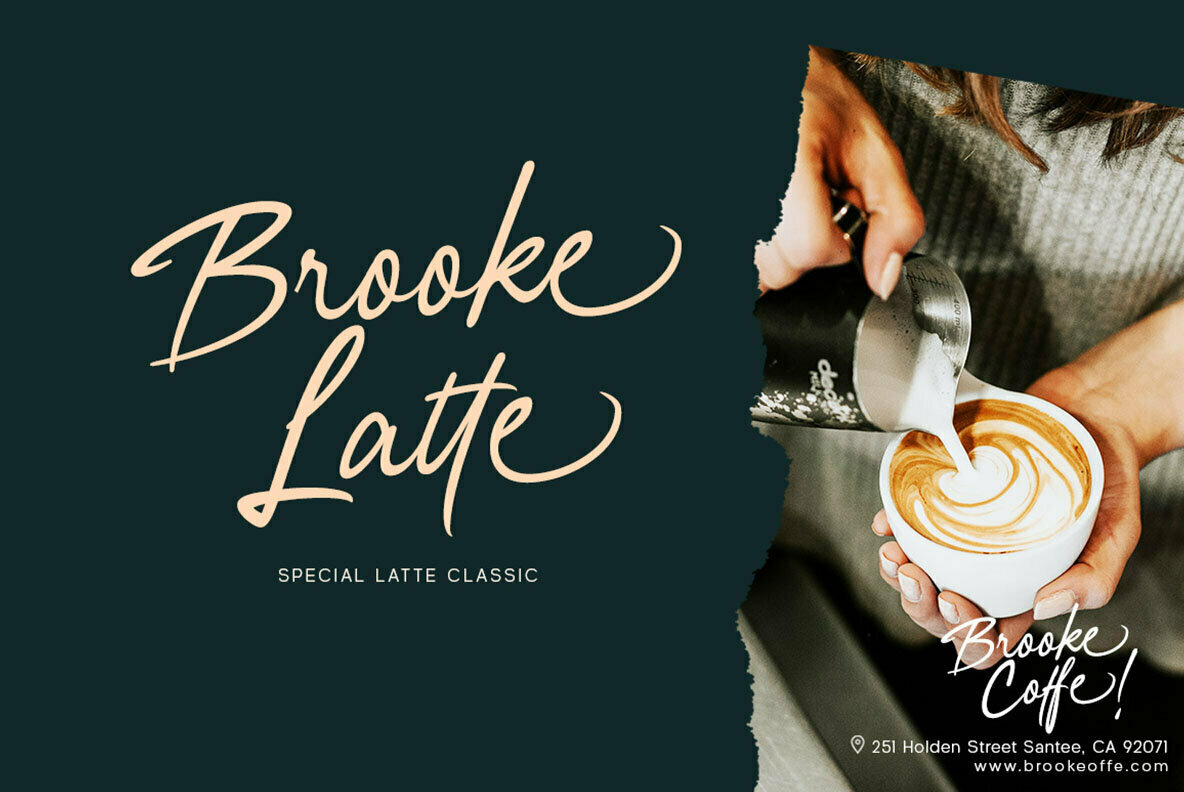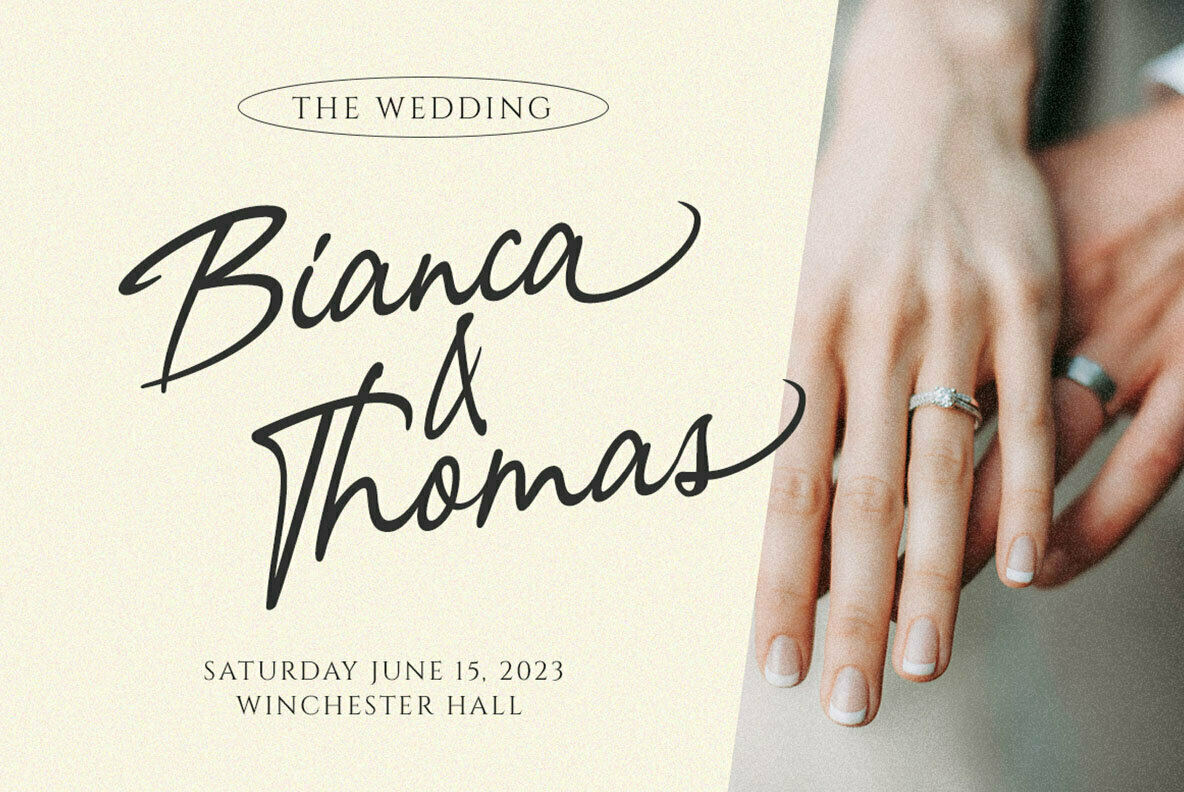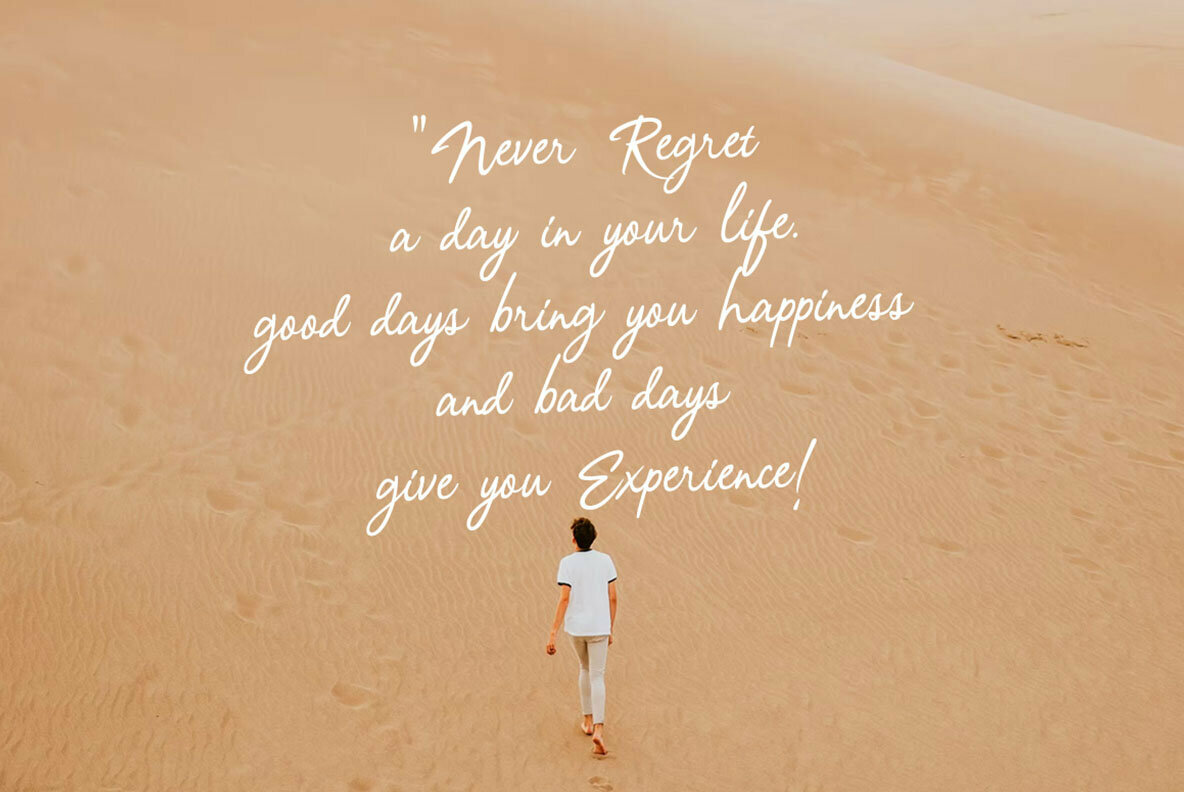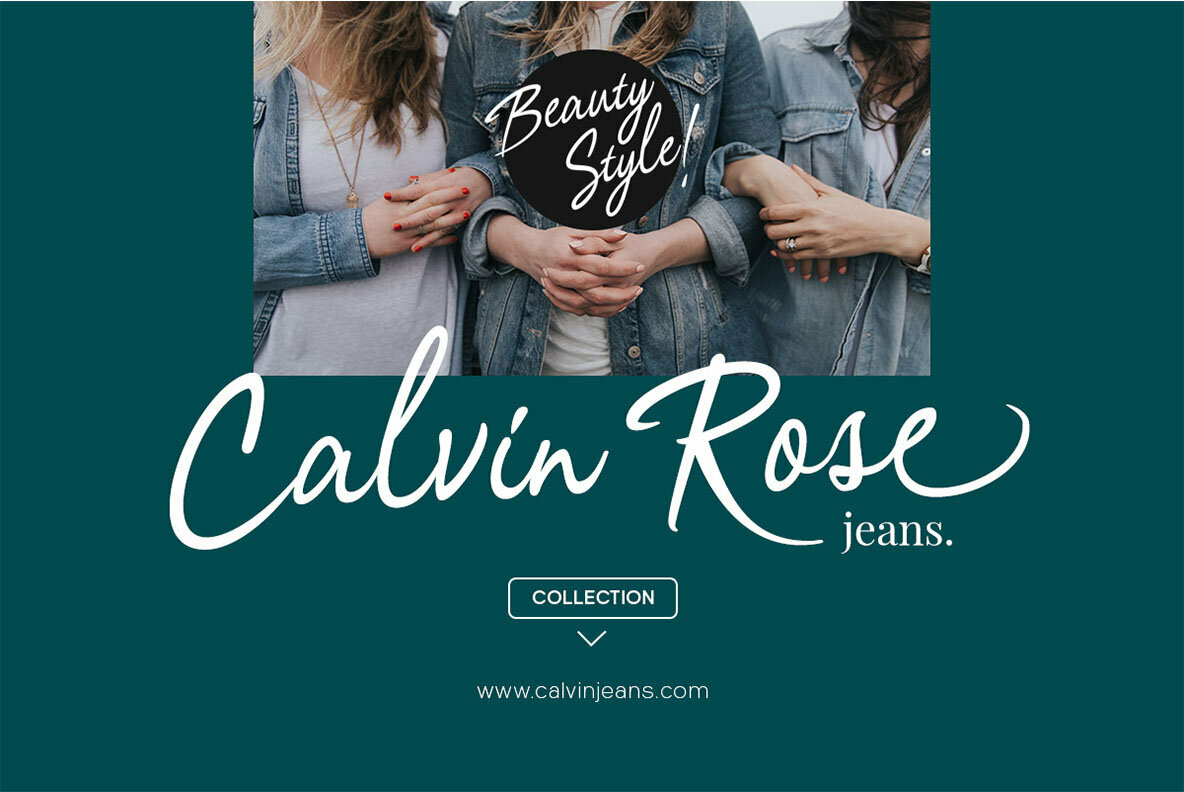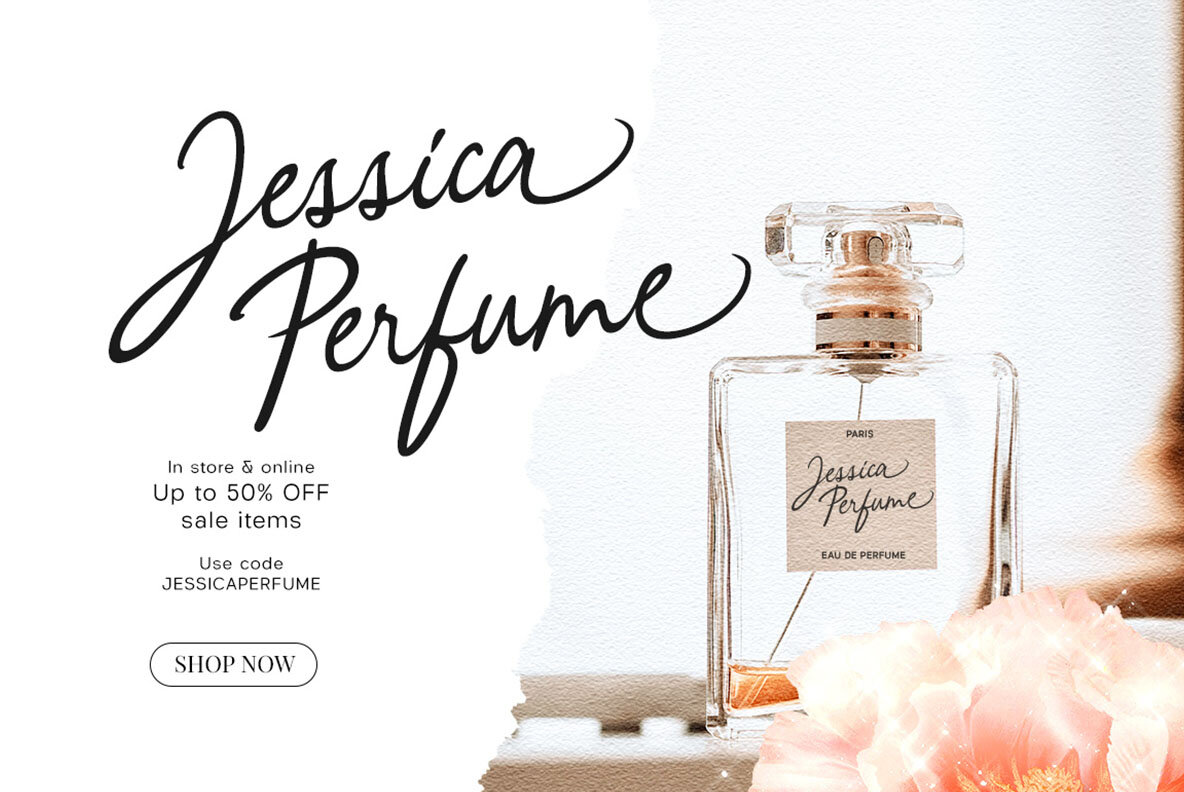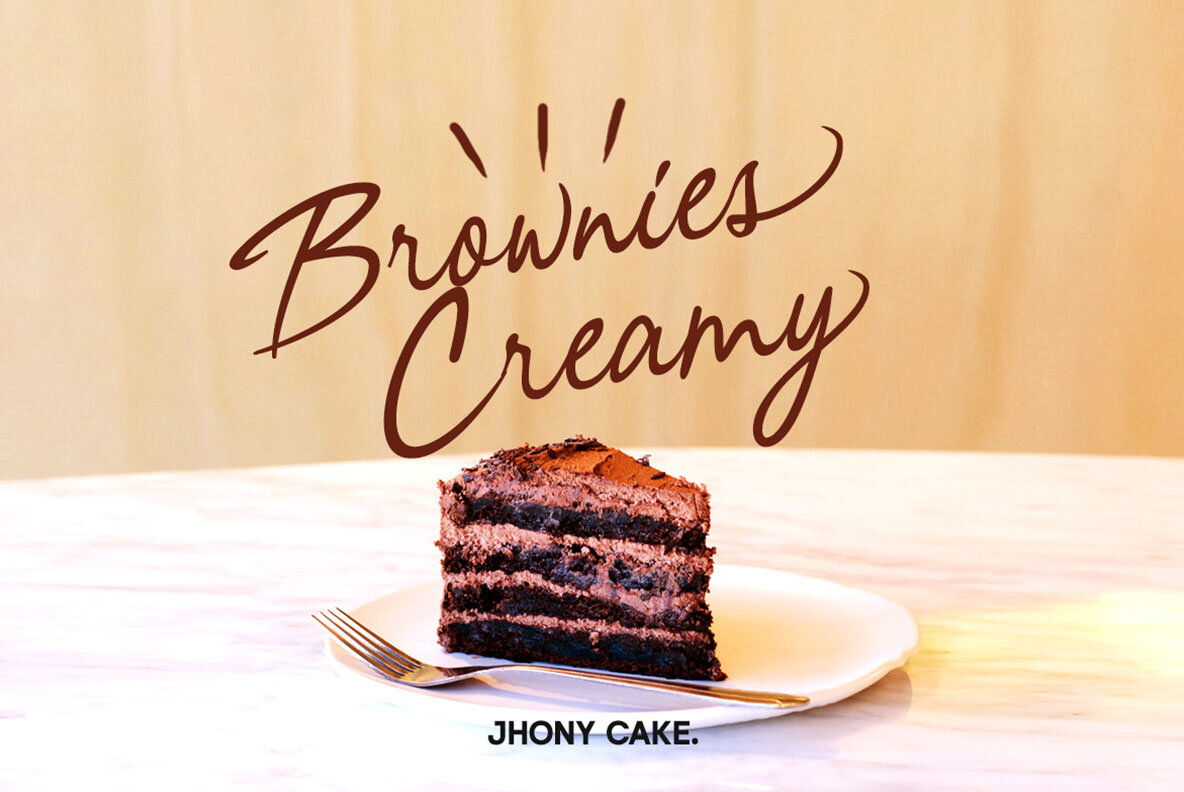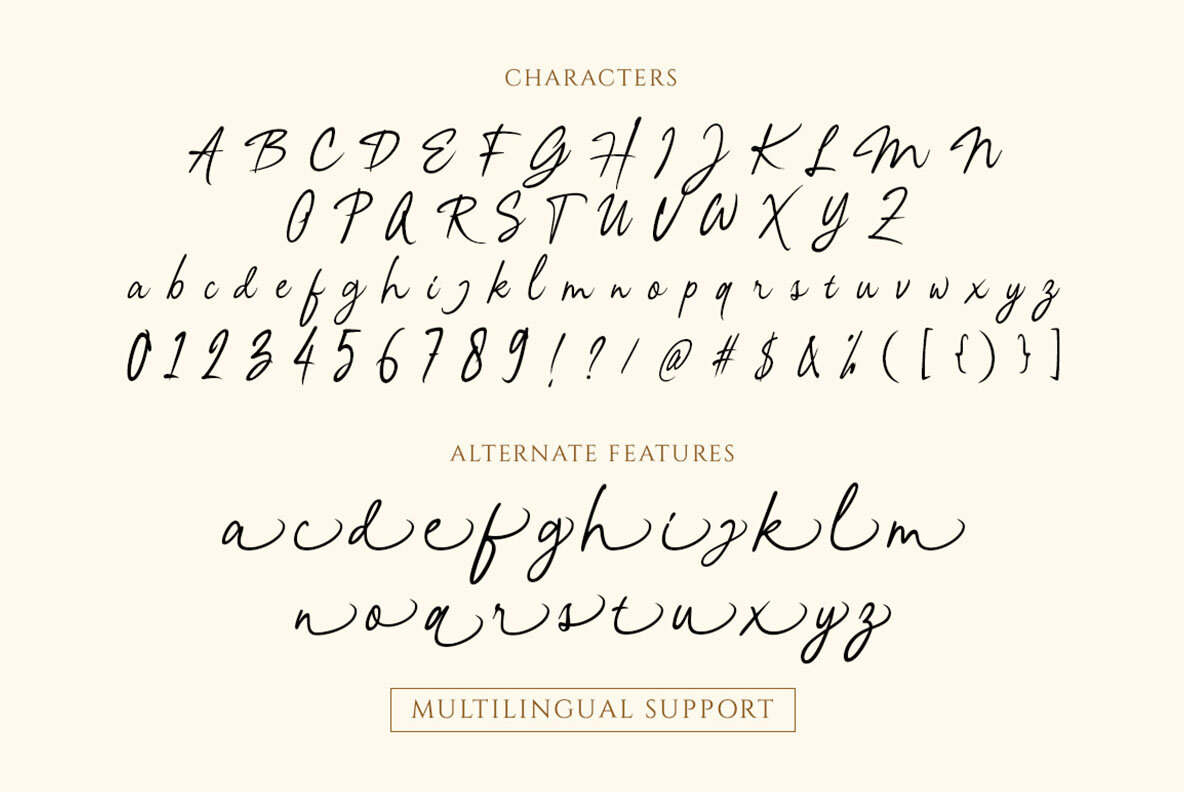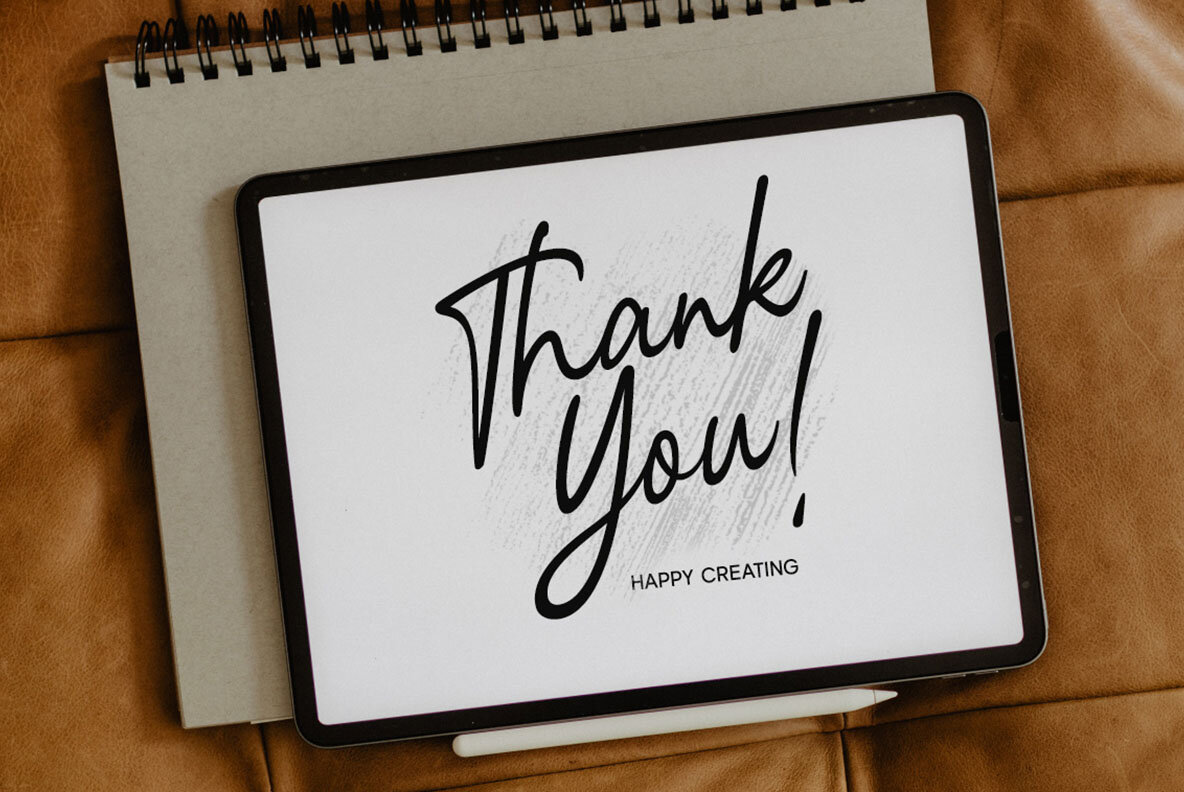
Nagintha Font
Nagintha
Nagintha captures the essence of natural handwriting, making it ideal for diverse applications. This font is a versatile choice for headlines and signatures, creating a personalized touch that suits various contexts. From logos to invitations and greeting cards, Nagintha seamlessly fits into any project that demands elegance and sophistication. The font's organic flow and style make it perfect for formal documents and creative designs alike. Whether you're designing for magazines, packaging, or advertising, Nagintha provides a refined aesthetic that enhances visual storytelling. Features:Nagintha: A Handwritten Script for Elegant Designs